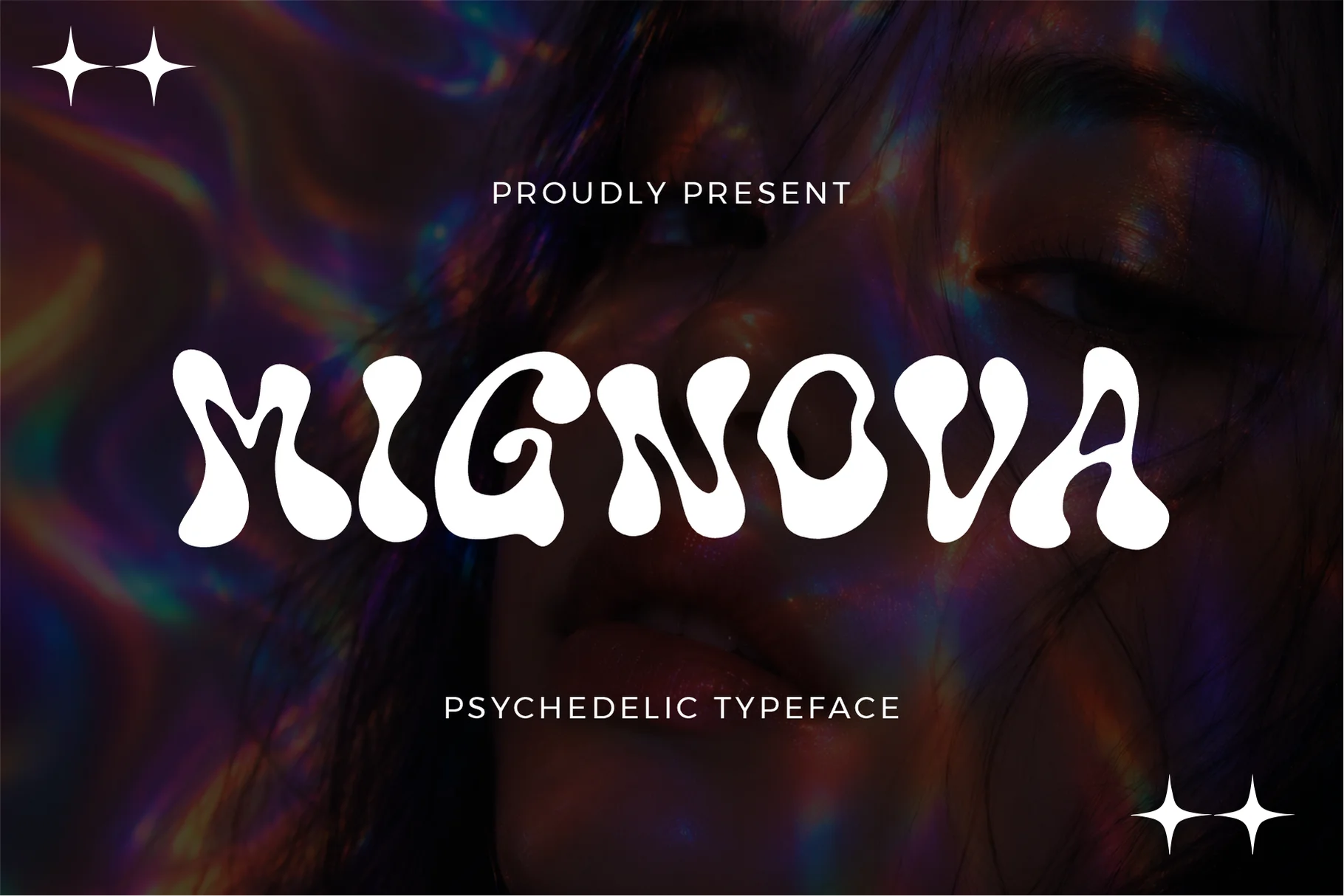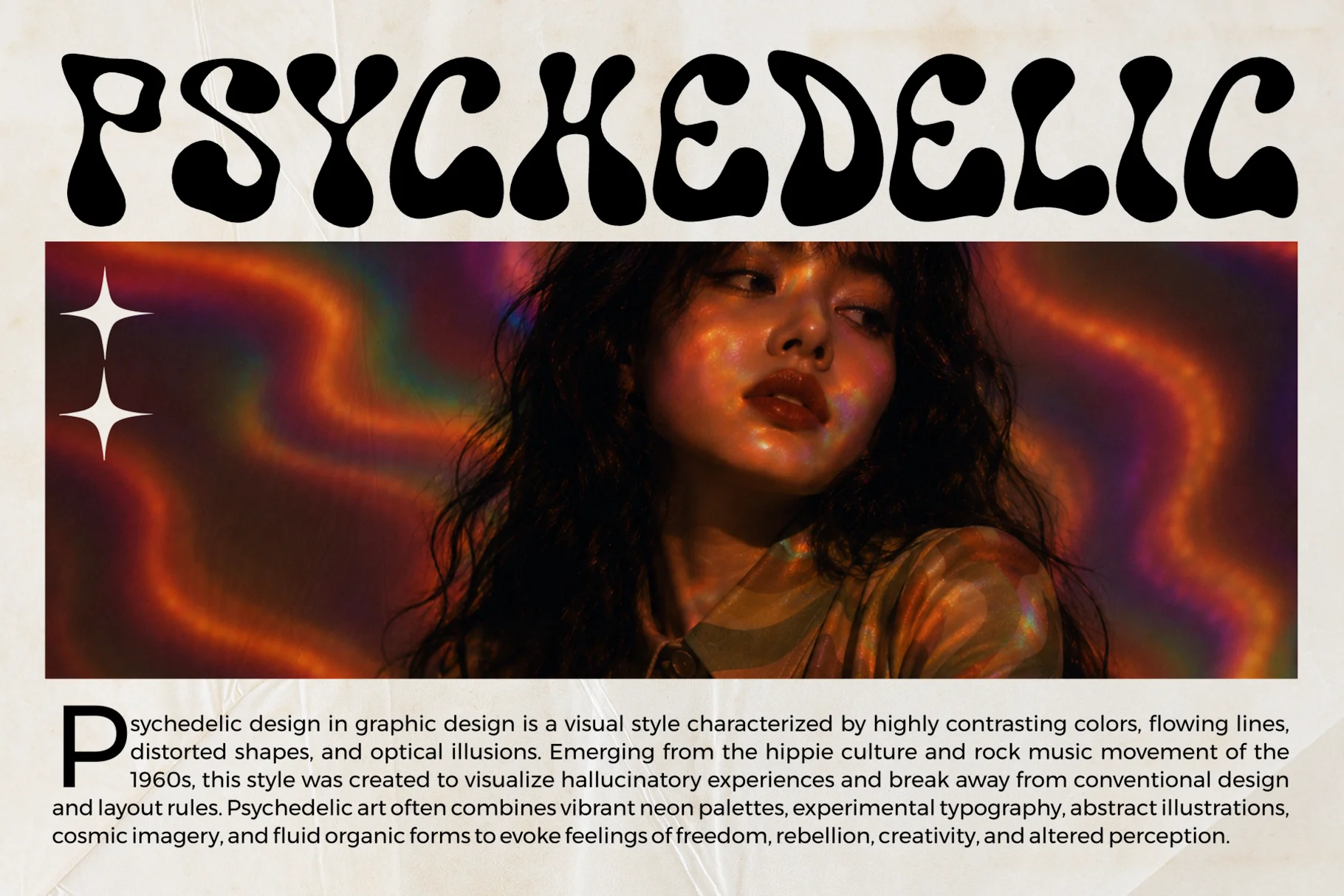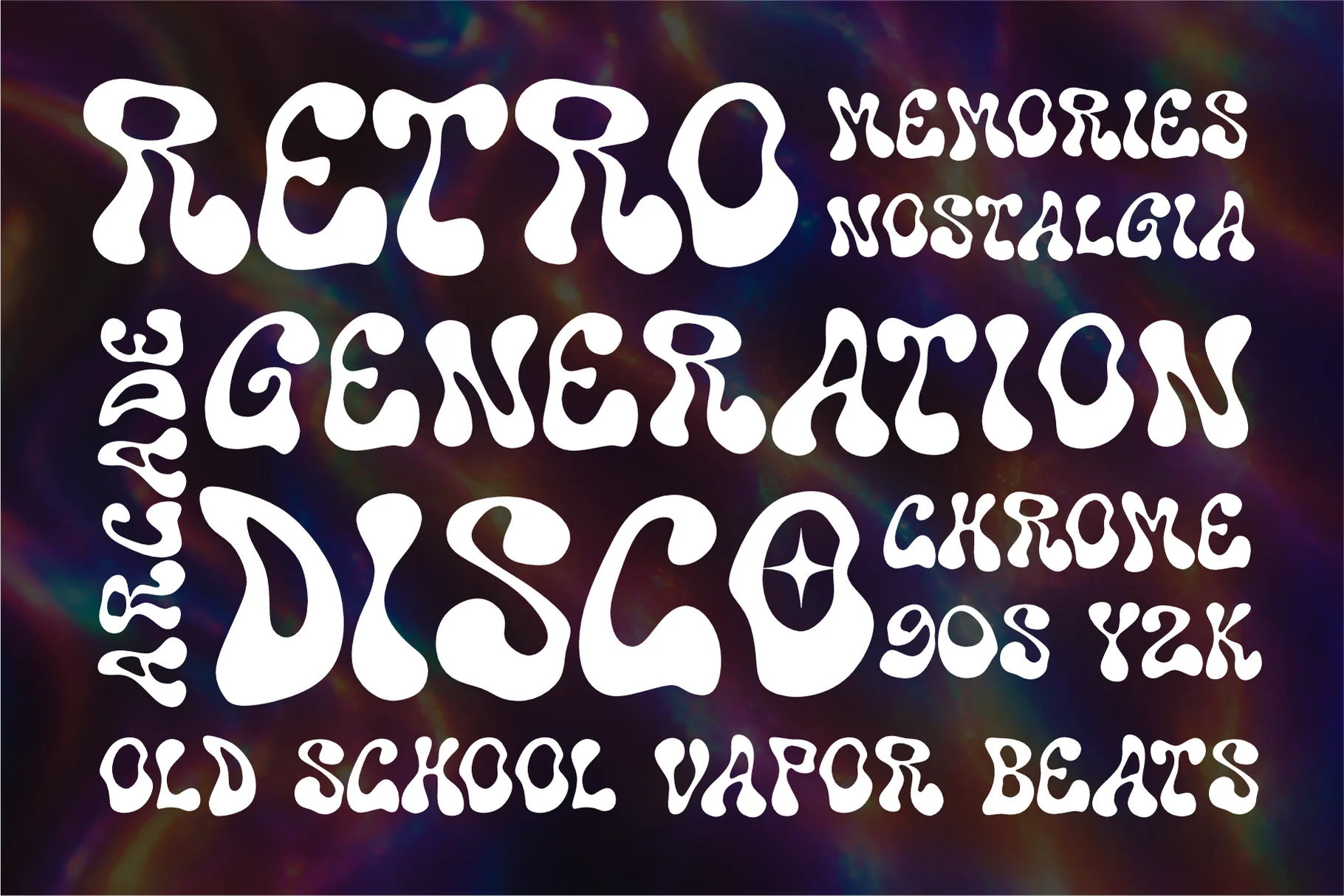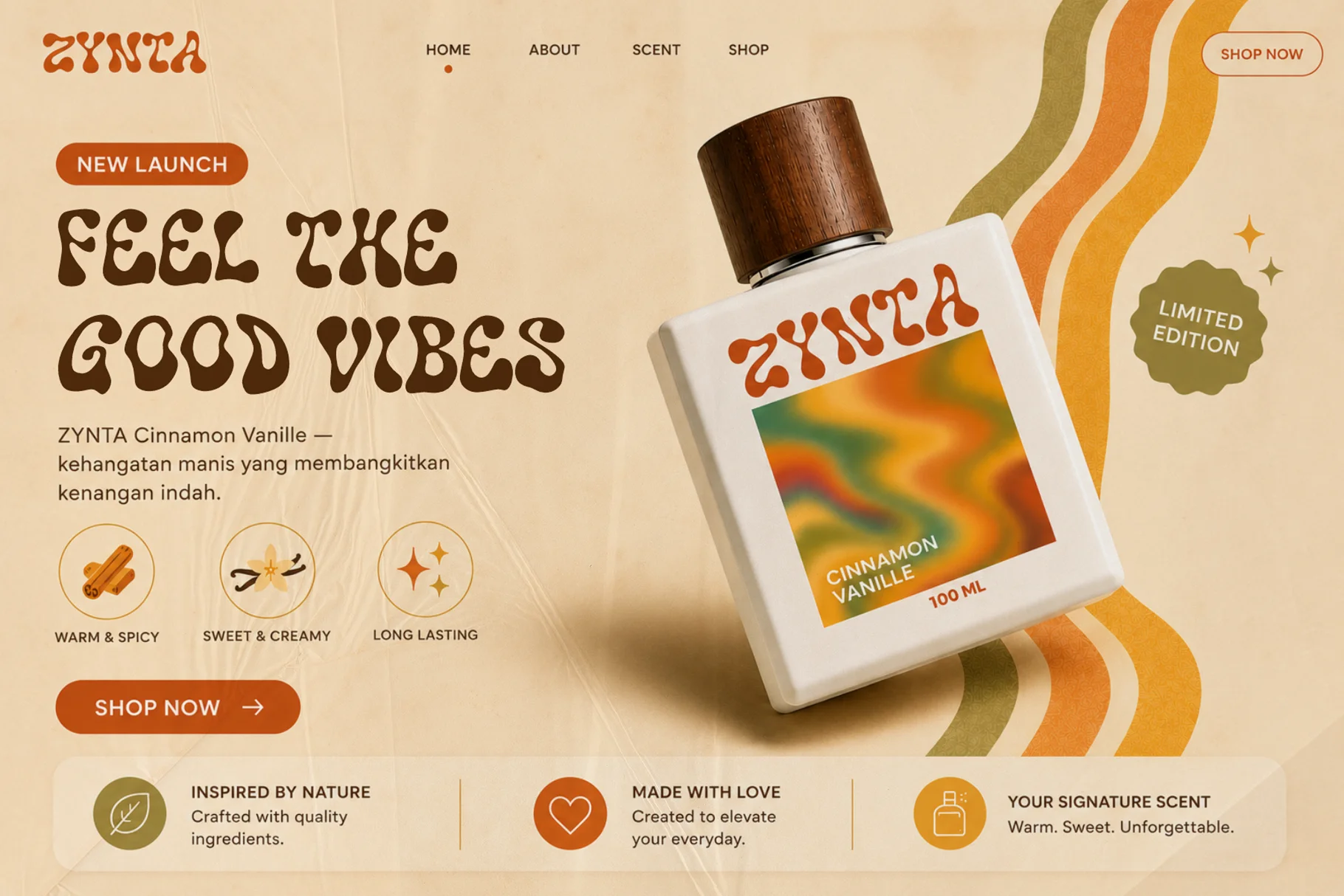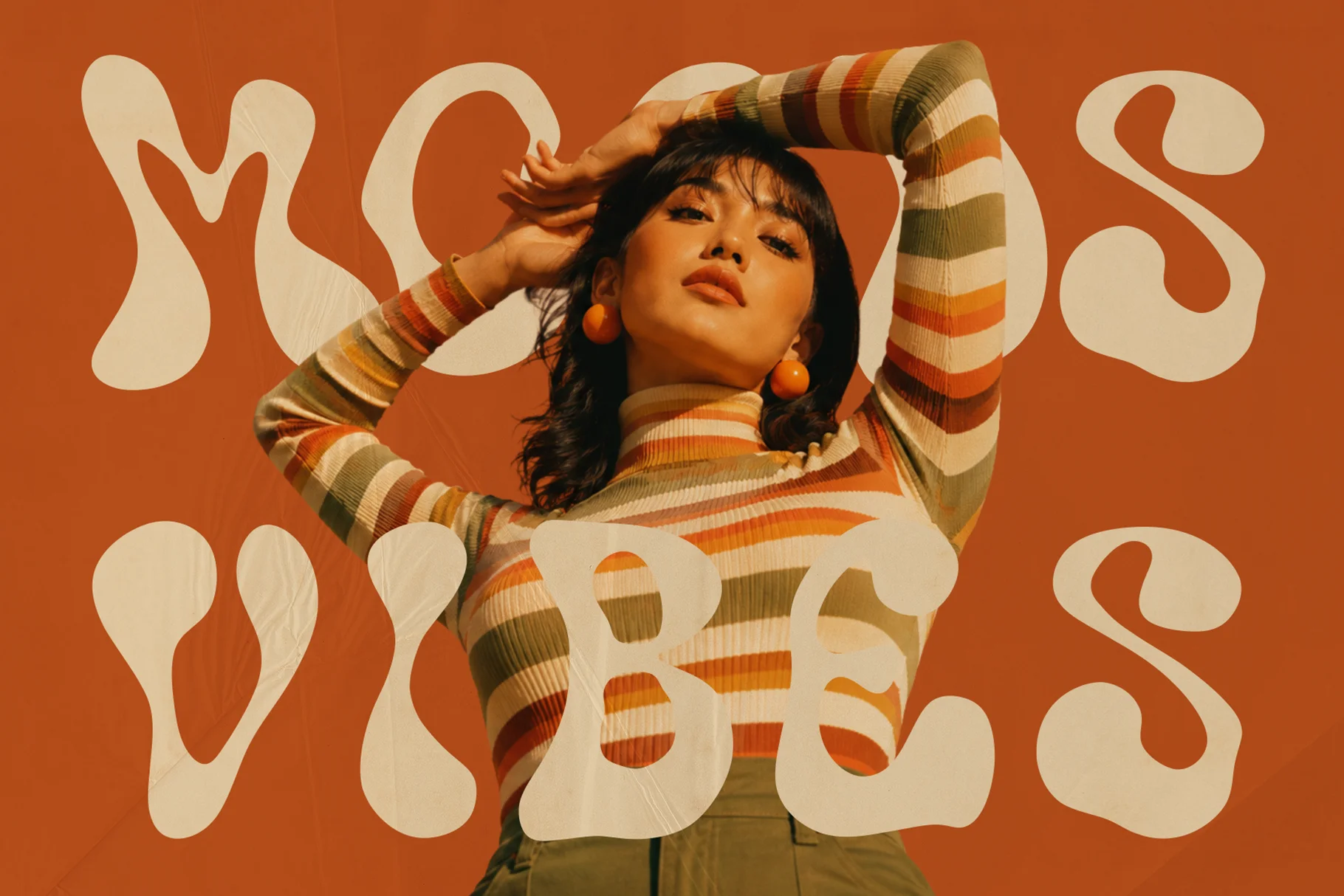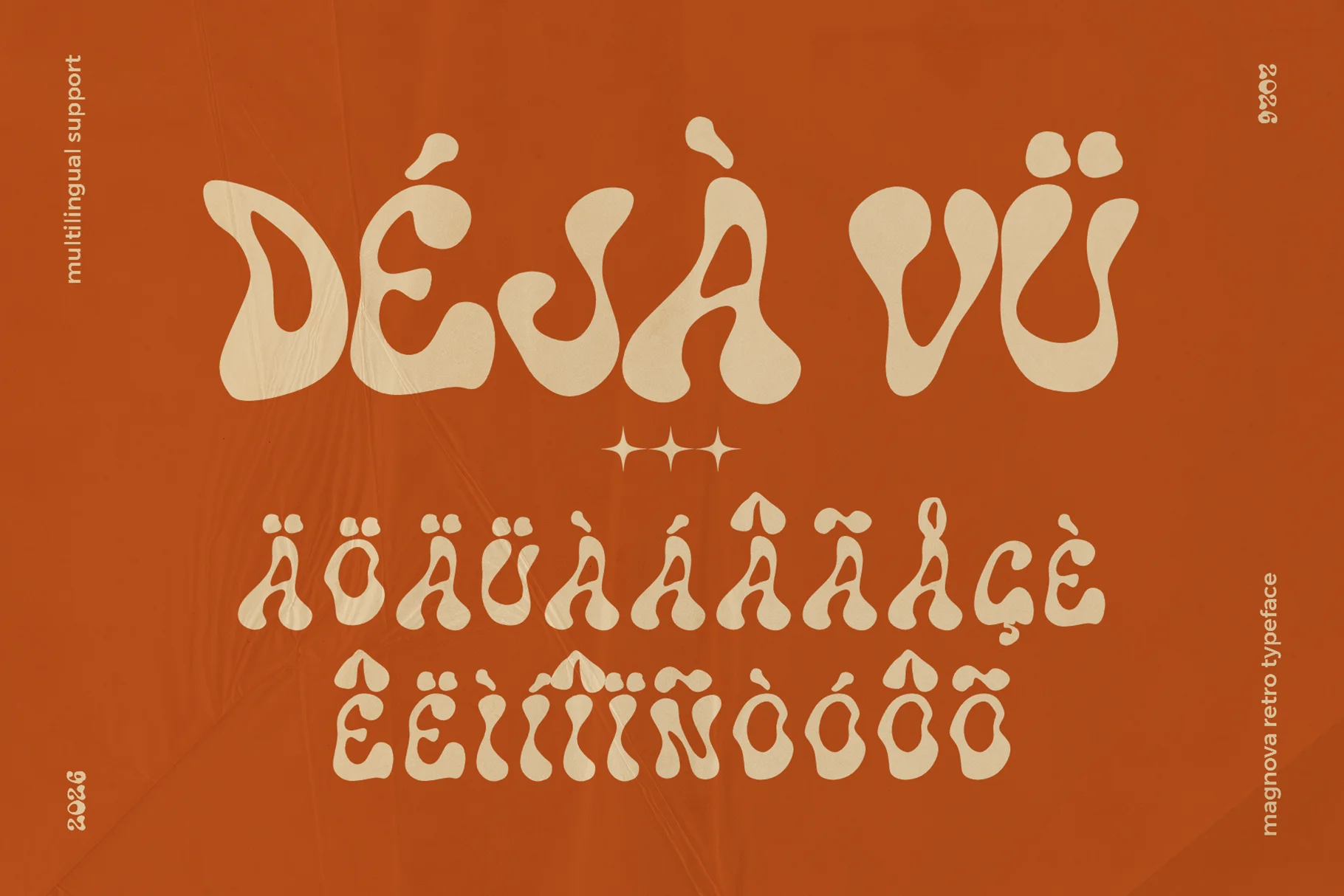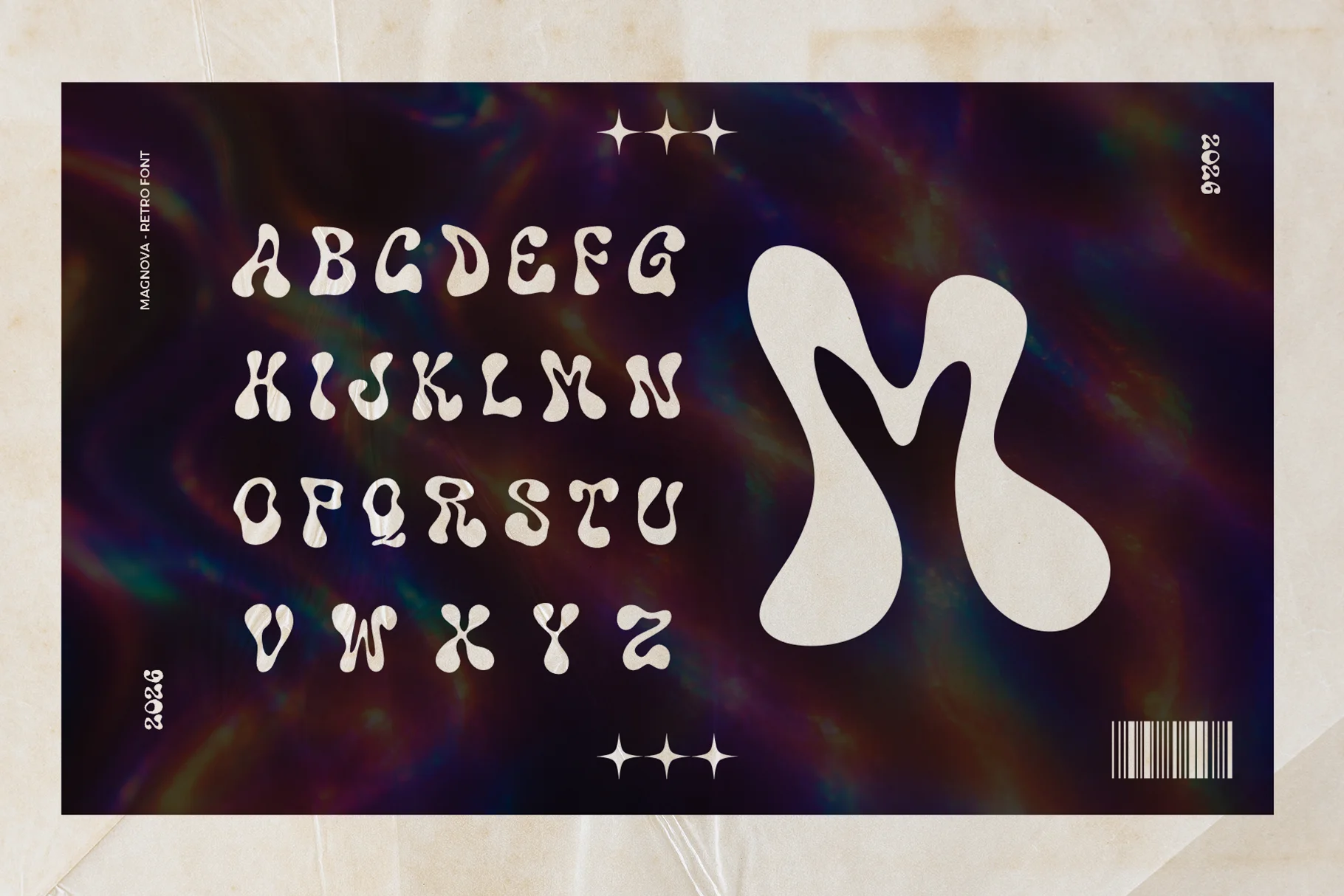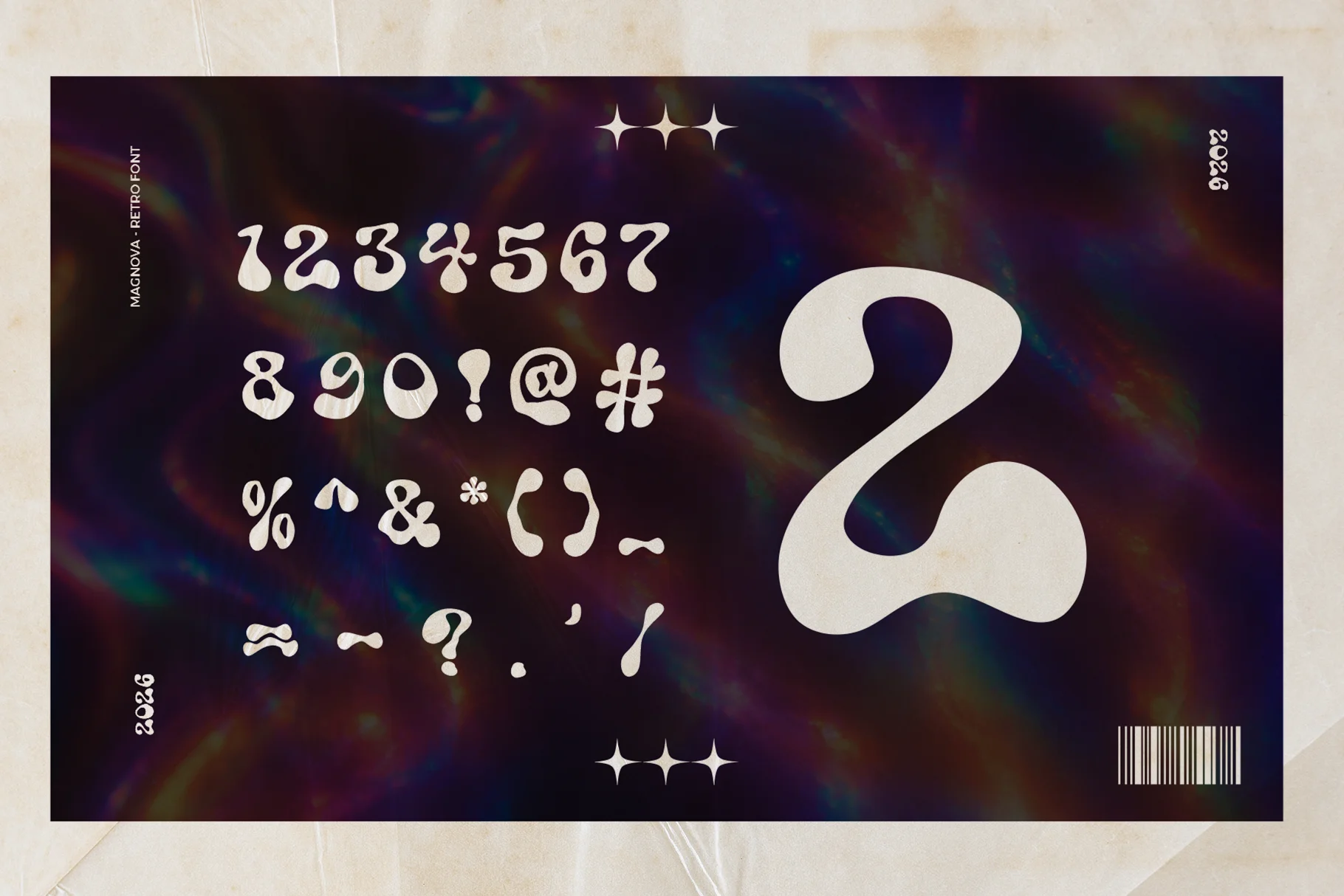
Mignova
Mignova is a fluid retro psychedelic font for posters, music artwork, fashion, branding, and editorial graphics with a hypnotic, organic visual character.
Font Support
• Fluid Psychedelic Display Character
• Uppercase, Numbers & Punctuation
• Applications for Retro Visual Design
About Mignova
Mignova is a retro psychedelic font with a fluid, organic personality and a distinctly hypnotic visual character. Its rounded, curving letterforms create a soft yet expressive silhouette, giving words a flowing quality that feels rooted in psychedelic poster art while remaining suitable for contemporary display design.
With its warped contours and smooth, unconventional shapes, Mignova brings an experimental edge to typography without relying on rough textures or heavy decoration. The font is designed to attract attention at display sizes, making it especially effective for posters, music artwork, editorial graphics, fashion visuals, branding, and other projects built around a strong retro-inspired atmosphere.
Mignova works particularly well when typography is treated as part of the artwork rather than simply as supporting information. Its distinctive forms can create an immediate focal point in short words, headlines, names, and graphic statements while adding a sense of movement and visual rhythm to the overall composition.
Fluid Psychedelic Display Character
Mignova draws on the expressive language of psychedelic typography through its organic curves, bulbous forms, and unconventional proportions. The letters appear to flow into one another visually, creating a rhythmic quality that gives headlines a sense of motion and personality.
The rounded construction gives the typeface a softer character than many traditional psychedelic display fonts, while the unusual silhouettes keep it visually distinctive. At larger sizes, these characteristics become especially prominent, allowing Mignova to function as a headline, title treatment, or central graphic element.
Uppercase, Numbers & Punctuation
Mignova includes uppercase lettering, numbers, and punctuation, providing the essential characters needed for display-focused compositions. The uppercase format is particularly effective for short headlines, titles, names, promotional phrases, and other large-scale typographic treatments where the distinctive letterforms can remain clearly visible.
Applications for Retro Visual Design
• Psychedelic posters and event artwork
• Music artwork and album graphics
• Fashion and editorial design
• Retro branding and visual identities
• Social media and promotional graphics
• Retro psychedelic display style
• Fluid and organic letterforms
• Rounded, expressive shapes
• Warped and unconventional proportions
• Strong visual rhythm
• Uppercase lettering
• Numbers included
• Punctuation included
• Suitable for large display typography
• Retro-inspired experimental character
Why Designers Love Mignova
Mignova gives display typography a strong visual personality without depending on excessive effects. Its flowing forms can immediately establish a psychedelic or retro mood, making the font useful when the lettering itself needs to become an important part of the artwork.
The distinctive silhouette also makes hierarchy easy to build. Large Mignova headlines can act as the primary visual focus, while simpler supporting type can provide contrast and readability. This approach works particularly well for posters, album artwork, fashion graphics, and editorial compositions.
Let the Letters Flow
Mignova brings fluid psychedelic typography and retro display character into a distinctive typeface designed for expressive visual work. Its rounded, organic forms create a hypnotic quality that can give headlines and graphic statements a strong sense of movement.
Use Mignova for psychedelic posters, music artwork, fashion graphics, editorial layouts, branding, social media artwork, and other projects that call for experimental retro typography with a smooth and expressive personality.